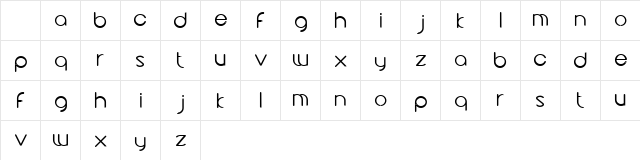
Complete yo mama Regular glyph index. Displaying only characters natively supported by yo mama Regular font.
yo mama is a composed and adaptable typeface that performs quietly and consistently across a wide range of design contexts.